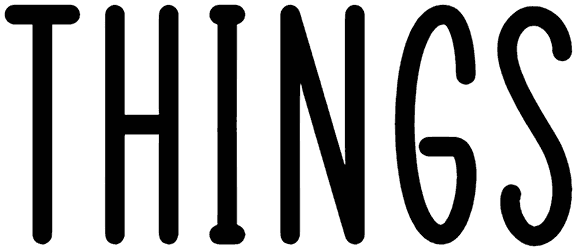
Things Font
Things is a playful handwritten font that comes with curved and rounded characters, thus sharing a sense of femininity, softness, delicacy, or dynamism with the audience and looks perfectly fit for a wide set of creative ideas, including cosmetic product packaging, flyers, brochures, banner ads, or greeting cards.
Aside from the lack of lowercase letters, it can be your practical assistant in the middle of designing high-end editorial projects.